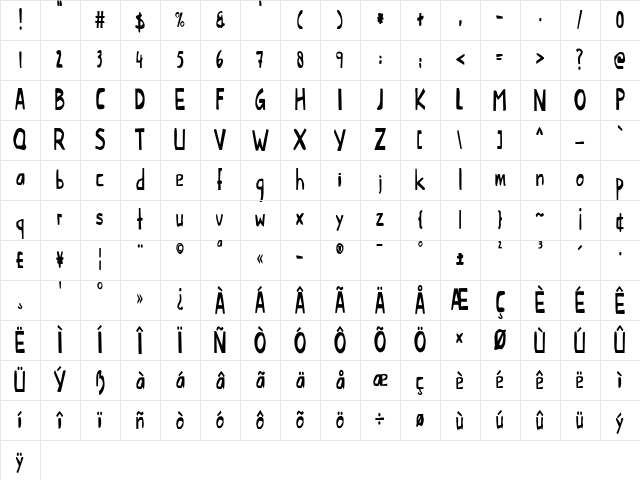
Complete This Little Piggy Condensed glyph index. Displaying only characters natively supported by This Little Piggy Condensed font.
This Little Piggy is a composed and adaptable typeface that performs quietly and consistently across a wide range of design contexts. Its narrow stance lets it pack a punch even in space-constrained designs.